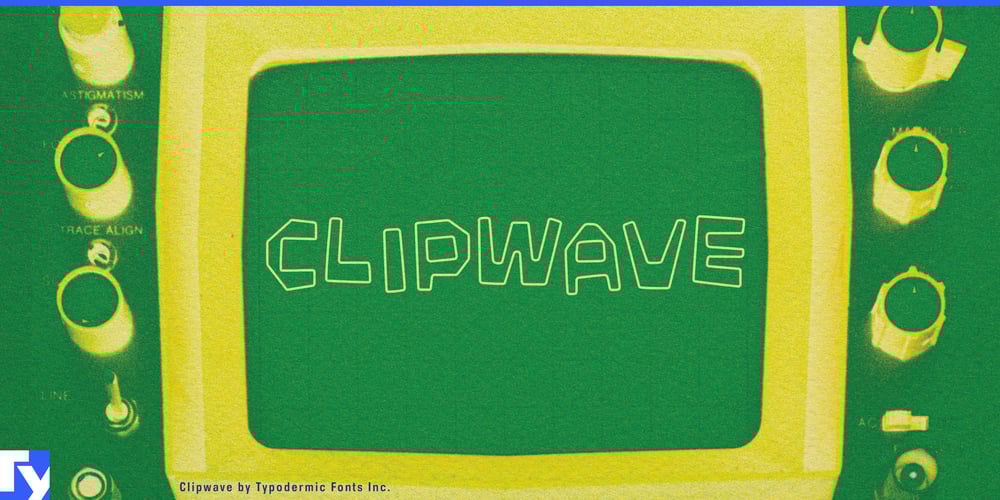
Clipwave Font Family was designed by Ray Larabie and published by Typodermic. Clipwave contains 1 styles and family package options. Clip into the future with Clipwave, a typeface that defies convention and electrifies the senses. This isn’t just a font—it’s a visual revolution, fusing laser-trace letterforms with the unexpected charm of robot floor cleaner tracking patterns. The result? A quirky, offbeat display typeface that turns every word into a futuristic adventure.Clipwave doesn’t just stand out—it leaps off the page with the energy of a thousand neon signs. Its OpenType ligatures are the secret weapon, shuffling alphanumeric characters like a Vegas dealer to create a pseudorandomized effect that keeps viewers guessing and engaged. Each time you type, you’re not just writing—you’re generating a unique piece of typographic art. This font speaks the language of tomorrow fluently across borders. From Albanian cityscapes to Zulu tech startups, Clipwave adapts its futuristic flair to a vast array of Latin-based writing systems. It’s as comfortable on a Helsinki nightclub poster as it is in a São Paulo digital art installation, ensuring your message retains its cutting-edge appeal worldwide.Embrace Clipwave for designs that demand attention. It’s the perfect choice for forward-thinking brands, sci-fi enthusiasts, and anyone ready to break free from the gravitational pull of conventional typography. Headlines become news flashes from the future, logos transform into portals to another dimension, and every character tells a story of innovation and creativity.Don’t let your designs get lost in the static of ordinary fonts. Choose Clipwave and broadcast your message on a frequency all your own. It’s time to clip the ties to boring typography and wave hello to a future where every letter is an adventure. With Clipwave, you’re not just typing—you’re teleporting your audience into a world where creativity knows no bounds.